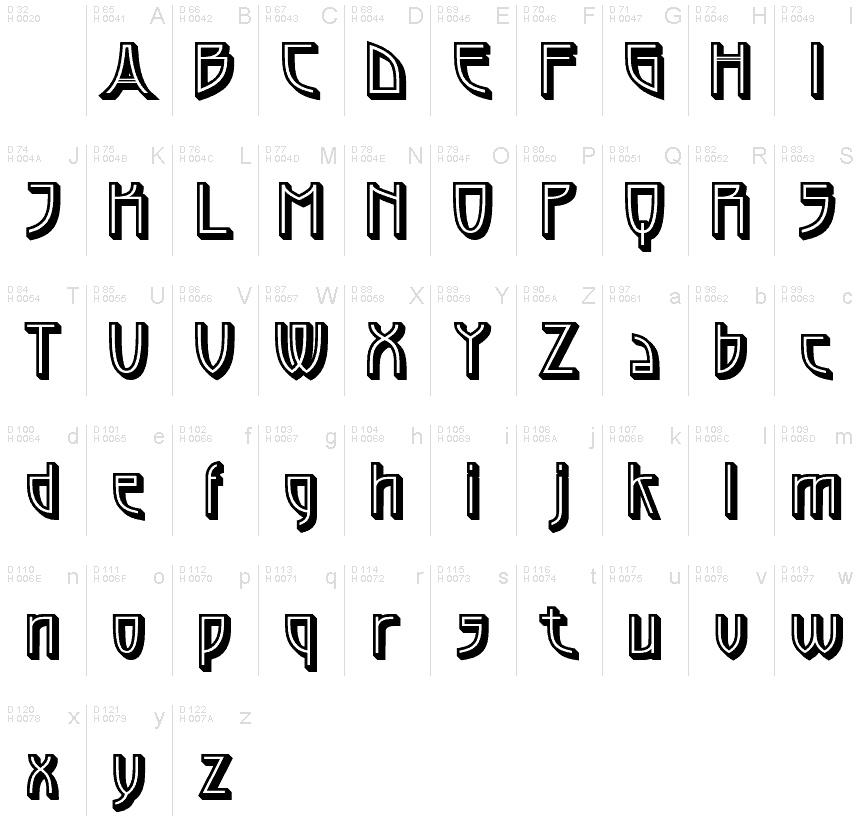
Chioki-ExtrudeRight Demo
Chioki ExtrudeRight font by Craft Supply Co. is a free display font showcasing the best from 3D and retro styles. The condensed letters deliver a compact design perfect to be included in limited spaces with creative angles and pleasurable designs.